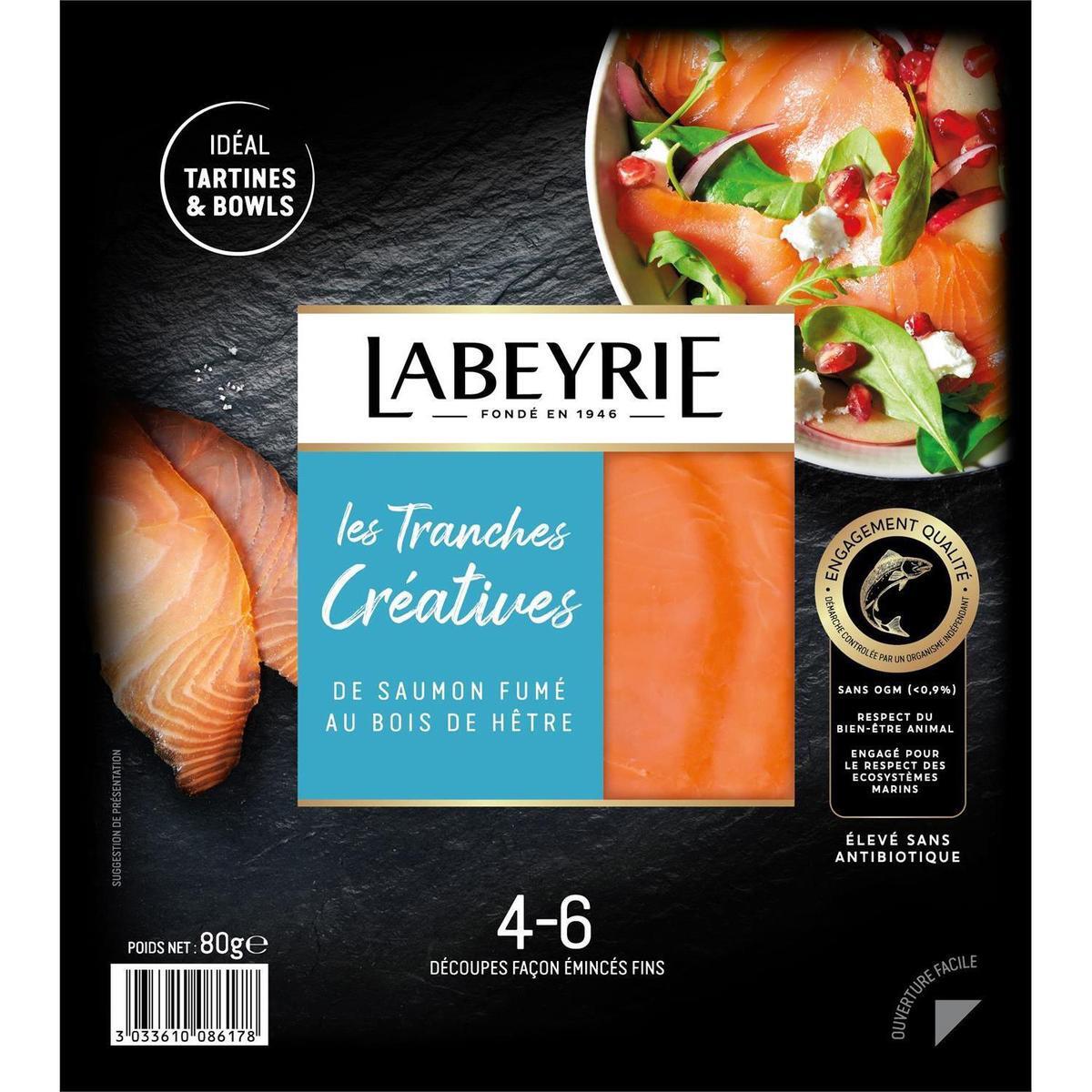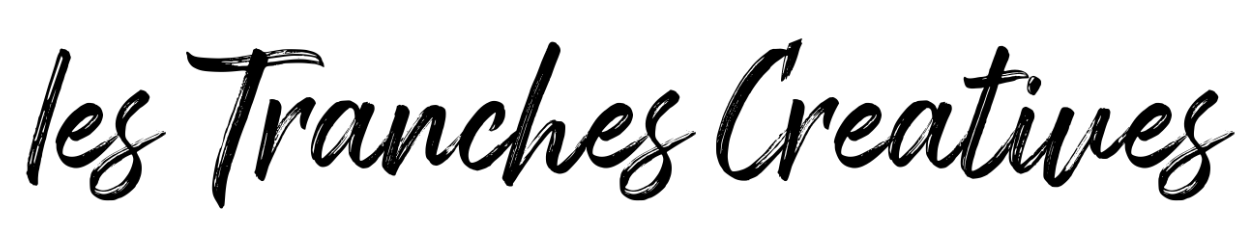
Font used for “Les Tranches Créatives” tagline on Labeyrie smoked salmon packaging
I’m trying to identify the script font used for the words “Les Tranches Créatives” on the front of Labeyrie’s smoked‑salmon packaging. This product is sold in French supermarkets; I purchased the pack pictured below in July 2025. The text appears on a teal panel and reads “Les Tranches Créatives – de saumon fumé au bois de hêtre.” It looks like a modern brush script with varying stroke widths.
Context and source
• Brand: Labeyrie (French gourmet seafood producer founded in 1946).
• Product: “Les Tranches Créatives” smoked‑salmon slices.
• Country: France (sold through retailers such as Auchanauchan.fr).
• Approximate date: 2024/2025 (this appears to be part of a recent re‑branding).
• Description: The full packaging is shown in the attached image. Additional product information can be seen on retail sites like Auchanauchan.fr.